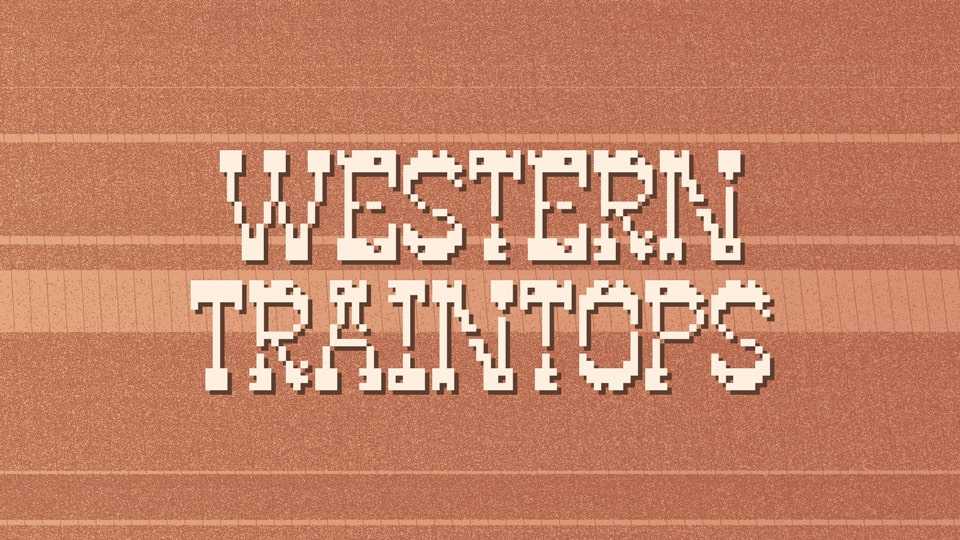
Download Western Traintops font, a Western-inspired pixel font that combines the charm of the Old West with the retro appeal of pixel art. With Western Traintops font, you can add a touch of the rustic and the rugged to your digital creations.